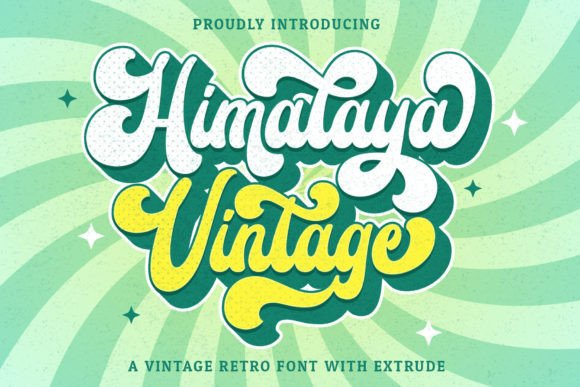
\n\nLooking for the perfect font to add a touch of retro style to your designs? Look no further than Himalaya Vintage Font! This playful and stylish script font, created by Hoperative Design, is sure to add tons of character to any project.\n\nAs the best font for Happy New Year, Himalaya Vintage Font is perfect for creating invitations, stationery, and social media posts to help you ring in the new year in style. Its retro feel also makes it a great choice for logos and branding, adding a unique touch that will make your brand stand out from the crowd.\n\nWith PUA encoding, accessing all of the glyphs and swashes is easy, making it simple to add even more personality to your designs. And with its versatile applications, Himalaya Vintage Font is sure to become a staple in your font collection.\n\nSo why wait? Add Himalaya Vintage Font to your font library today and start adding that special retro touch to all of your design ideas!\n\n